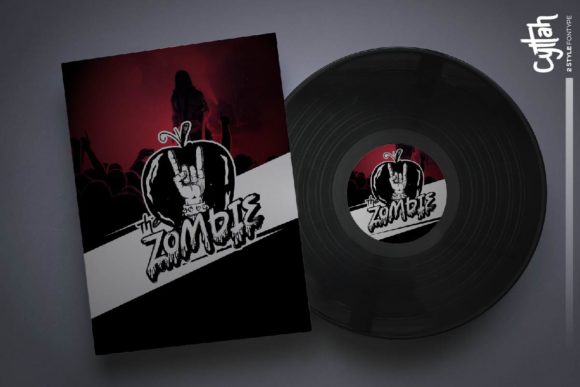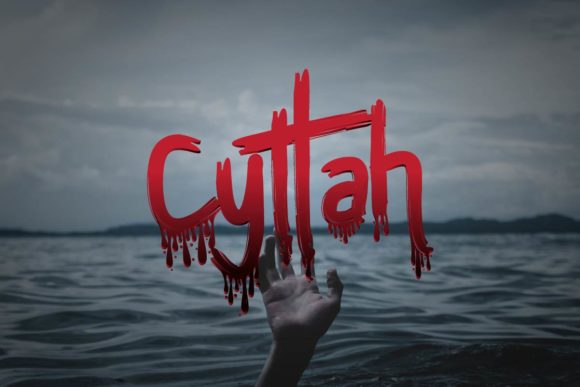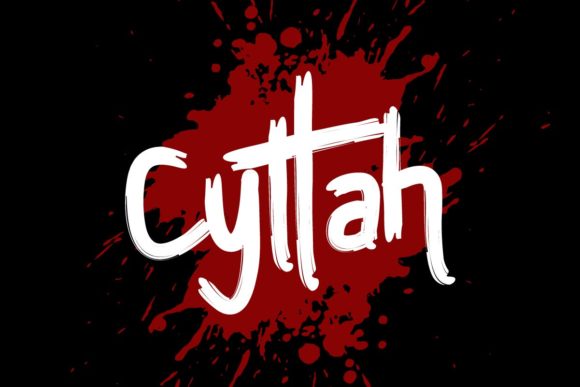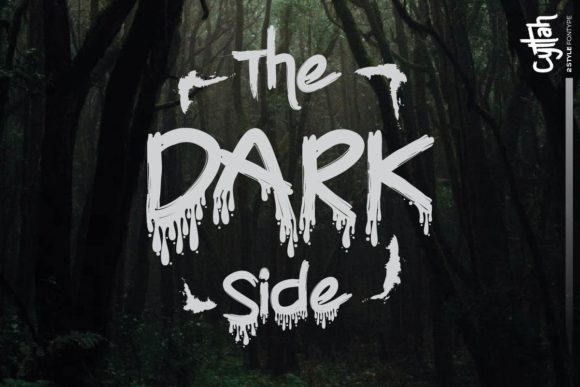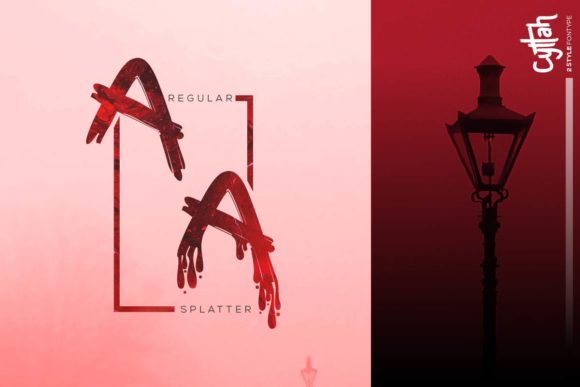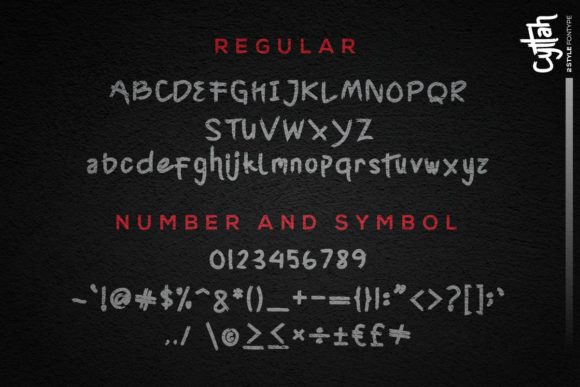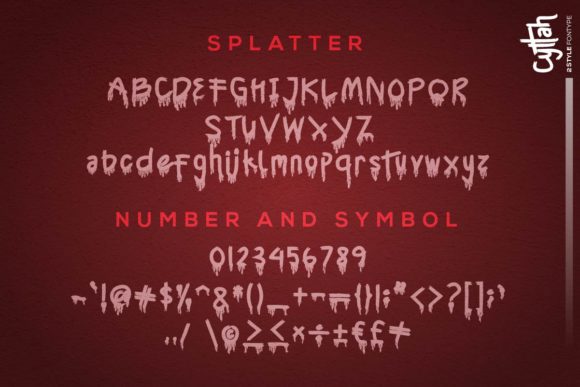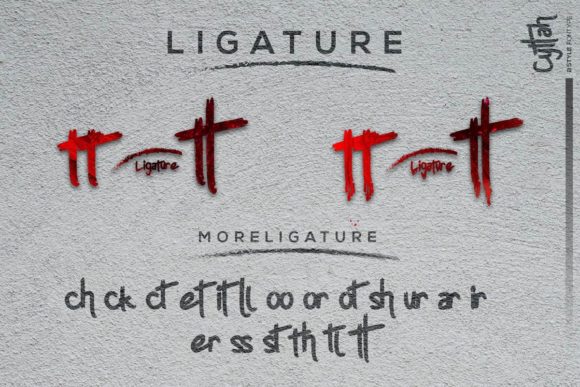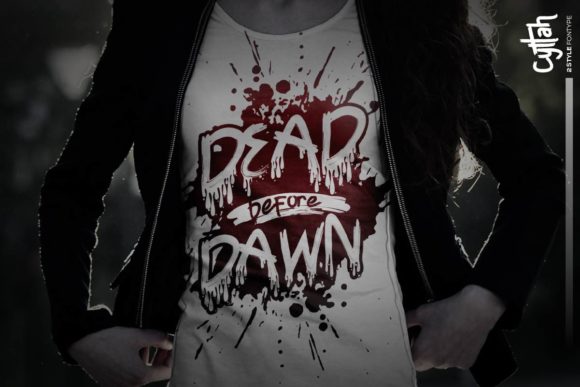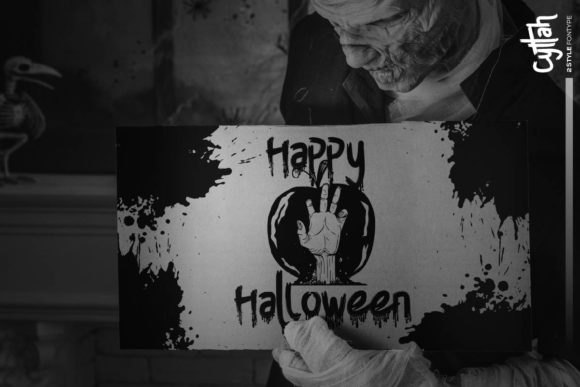
Cyttah Font
About Cyttah Font
Cyttah is a horror-themed handwritten font with a dark twist. It will turn any Halloween design project into a standout!